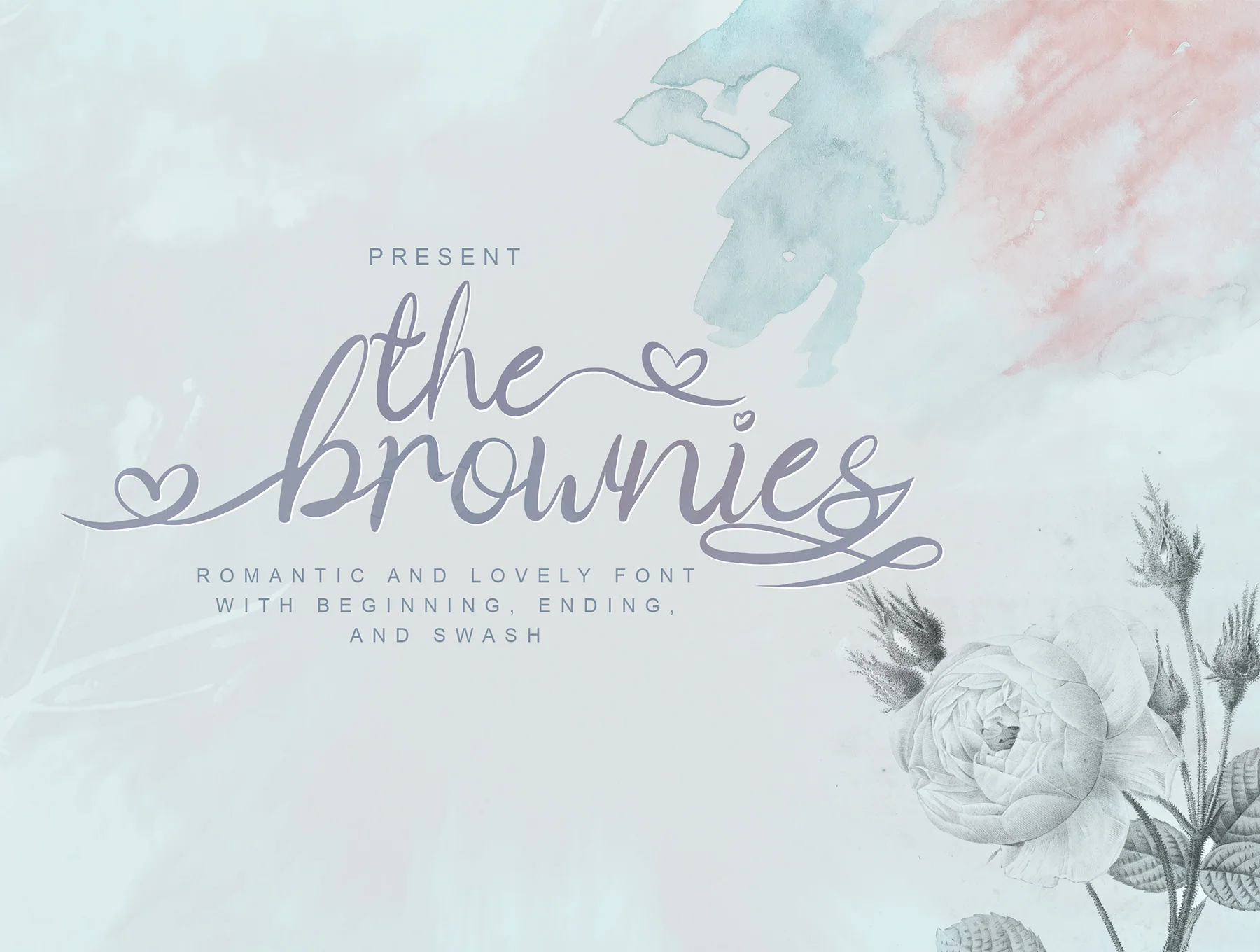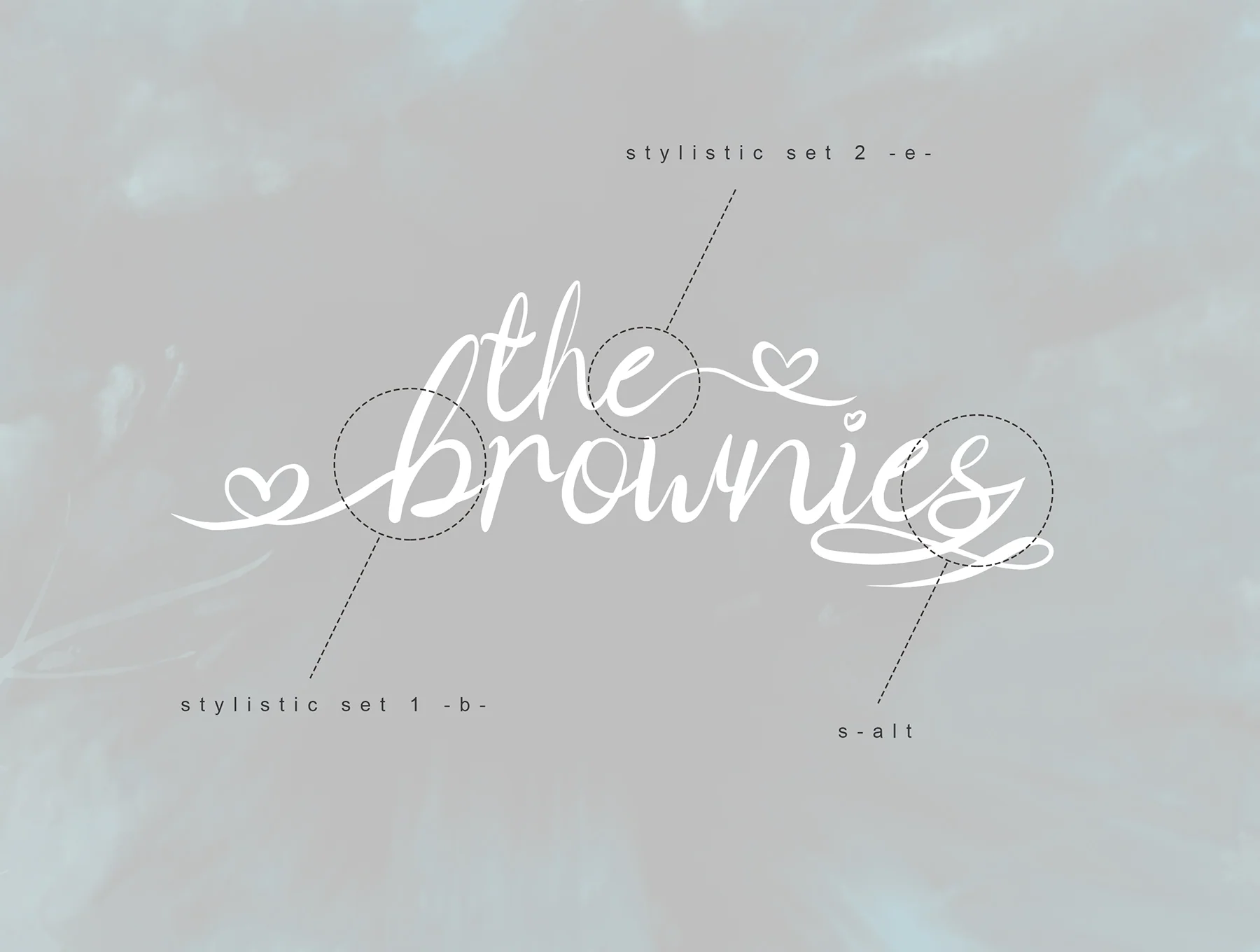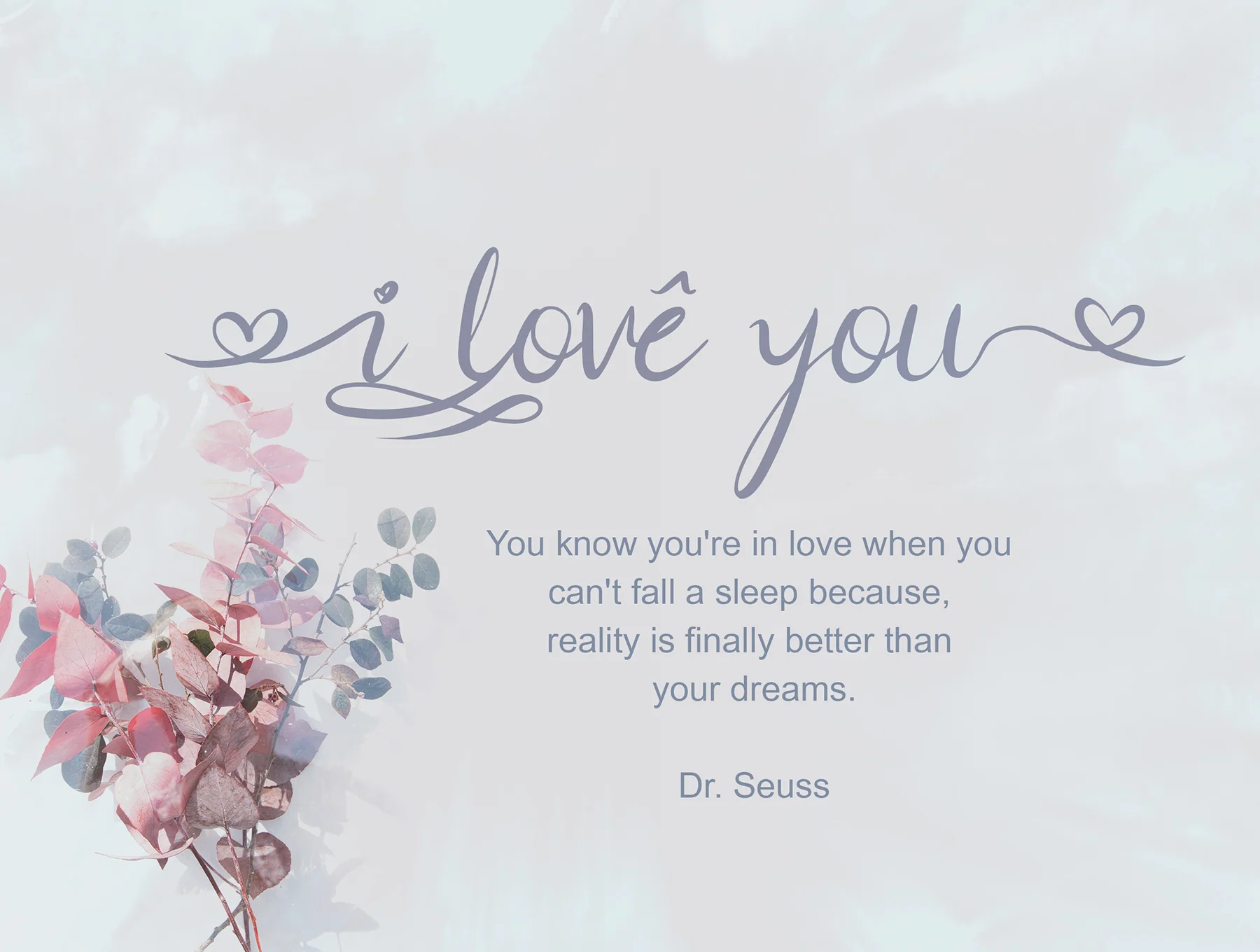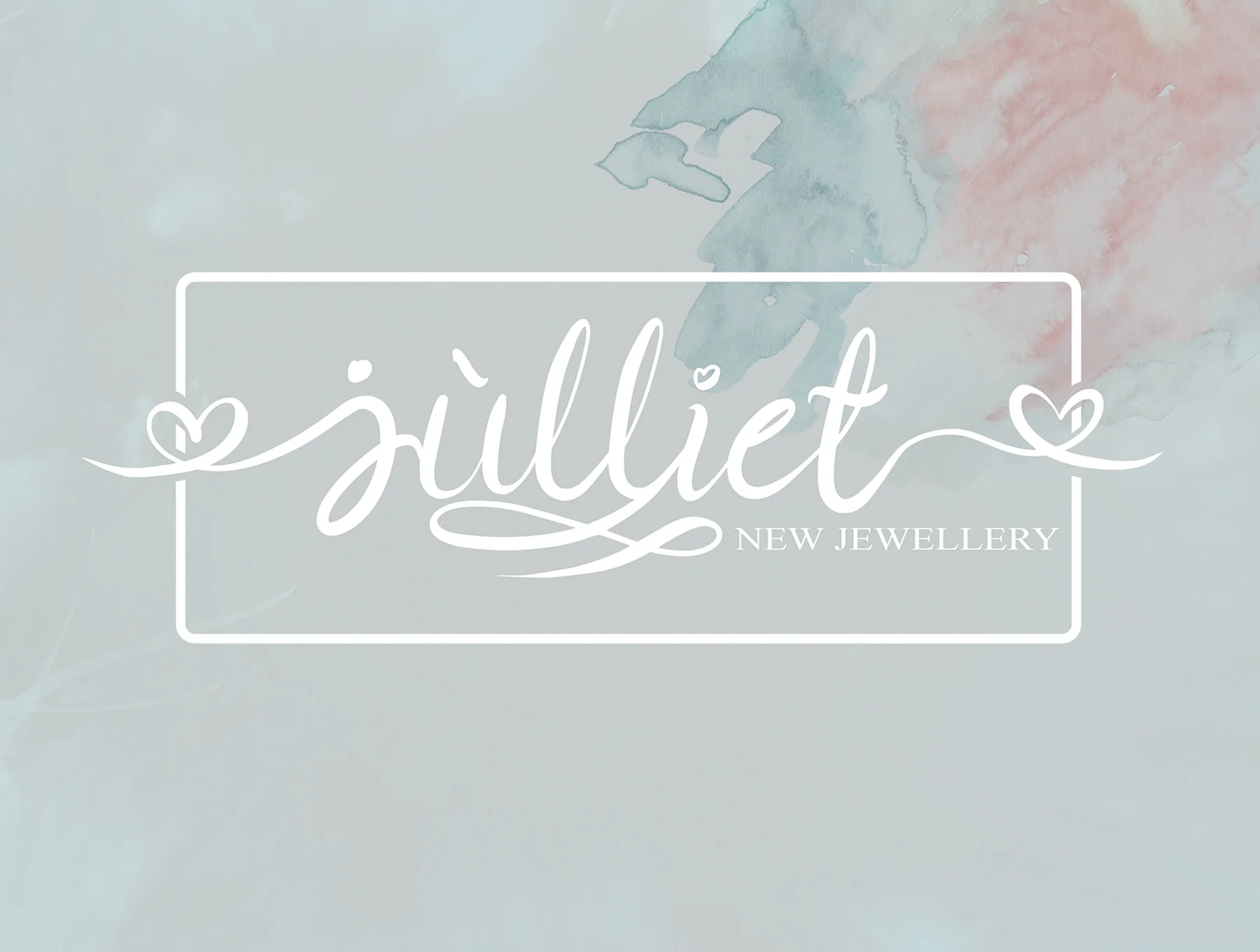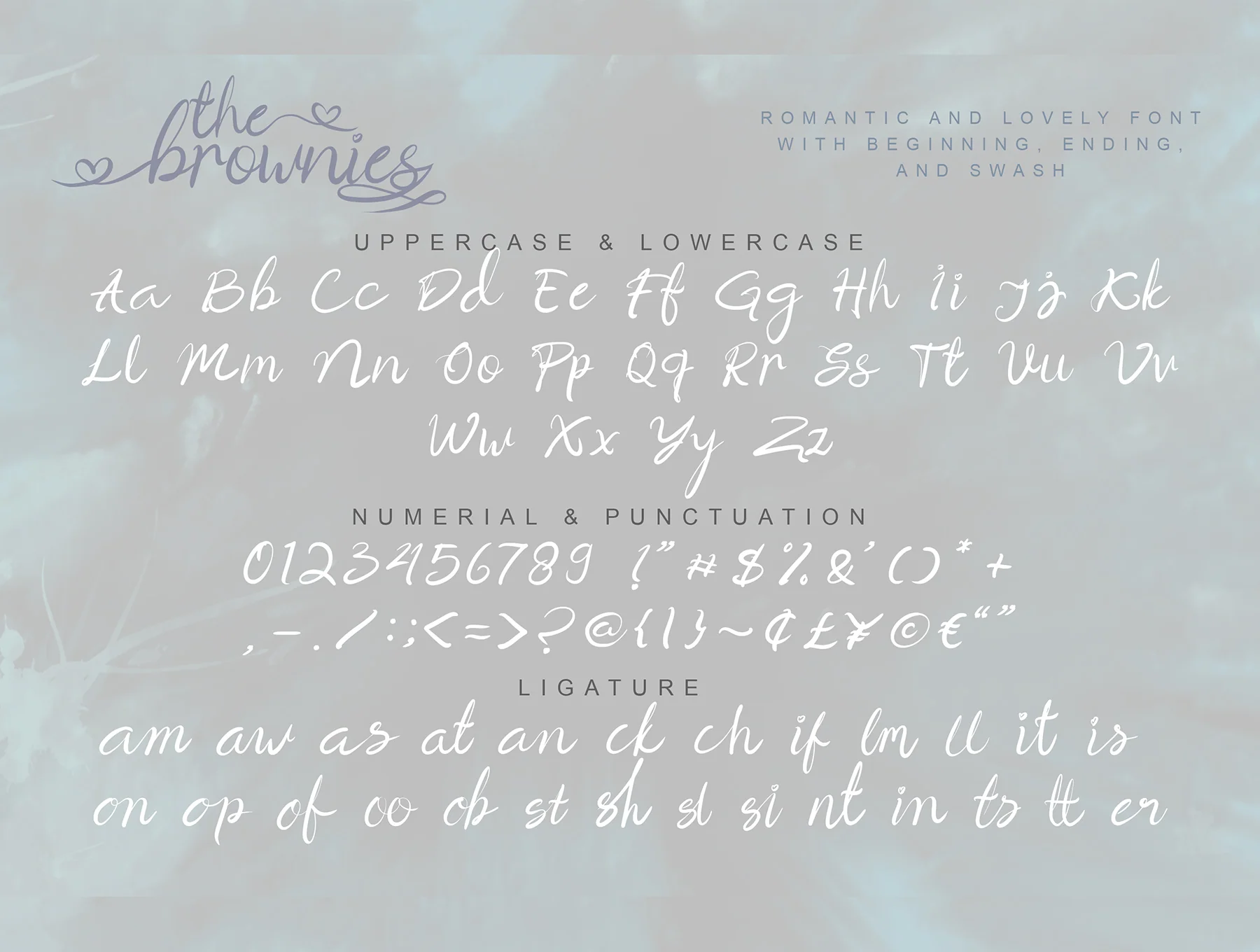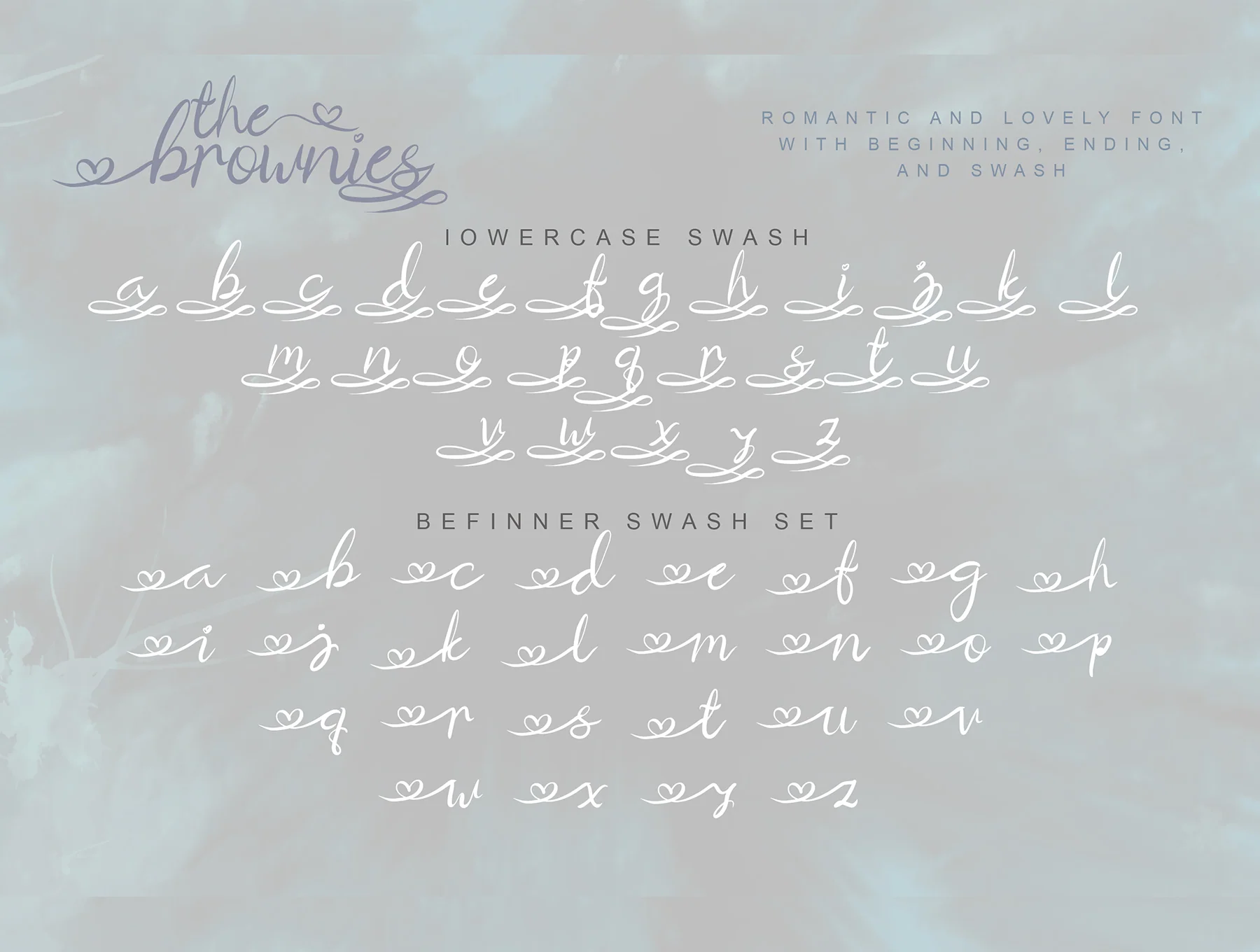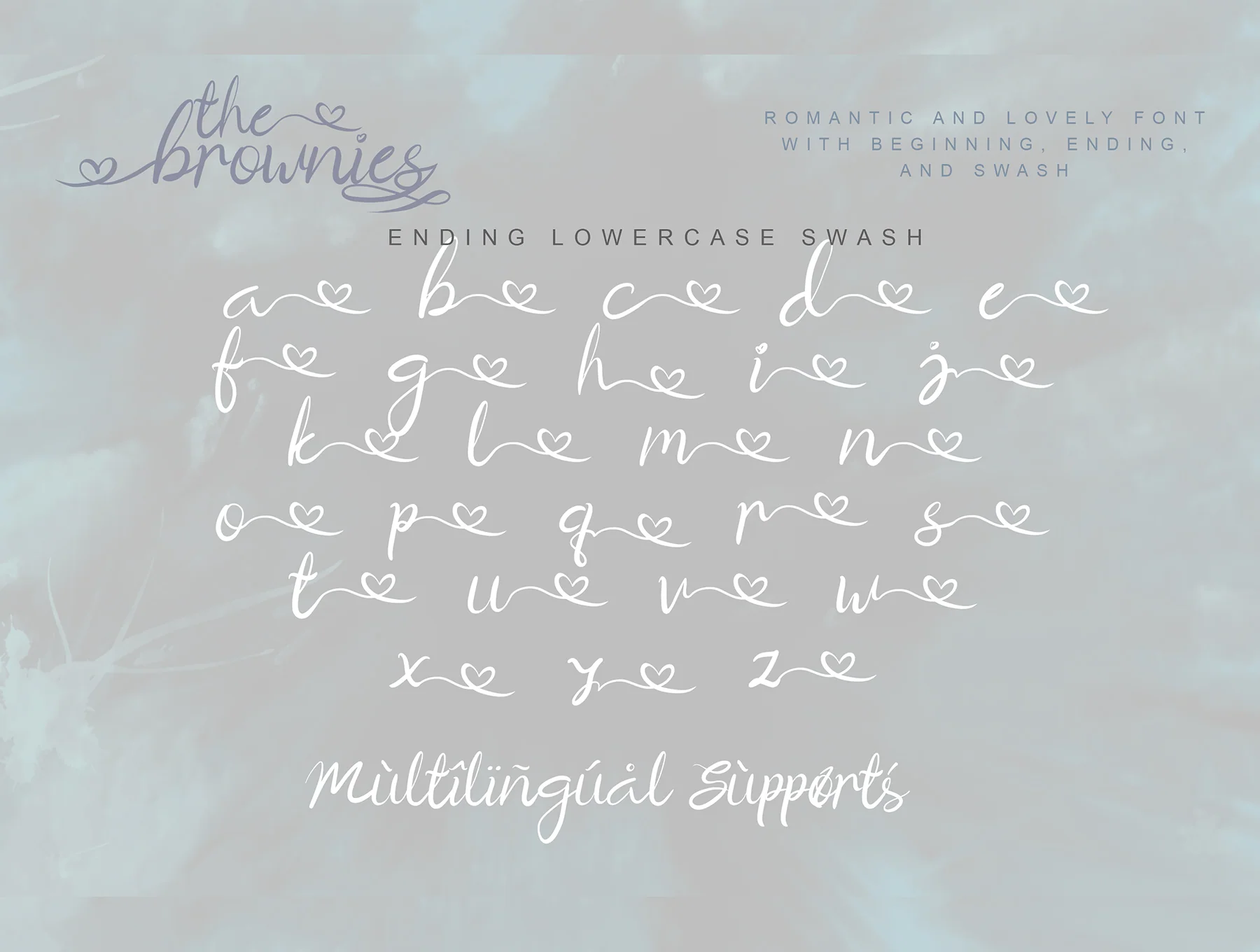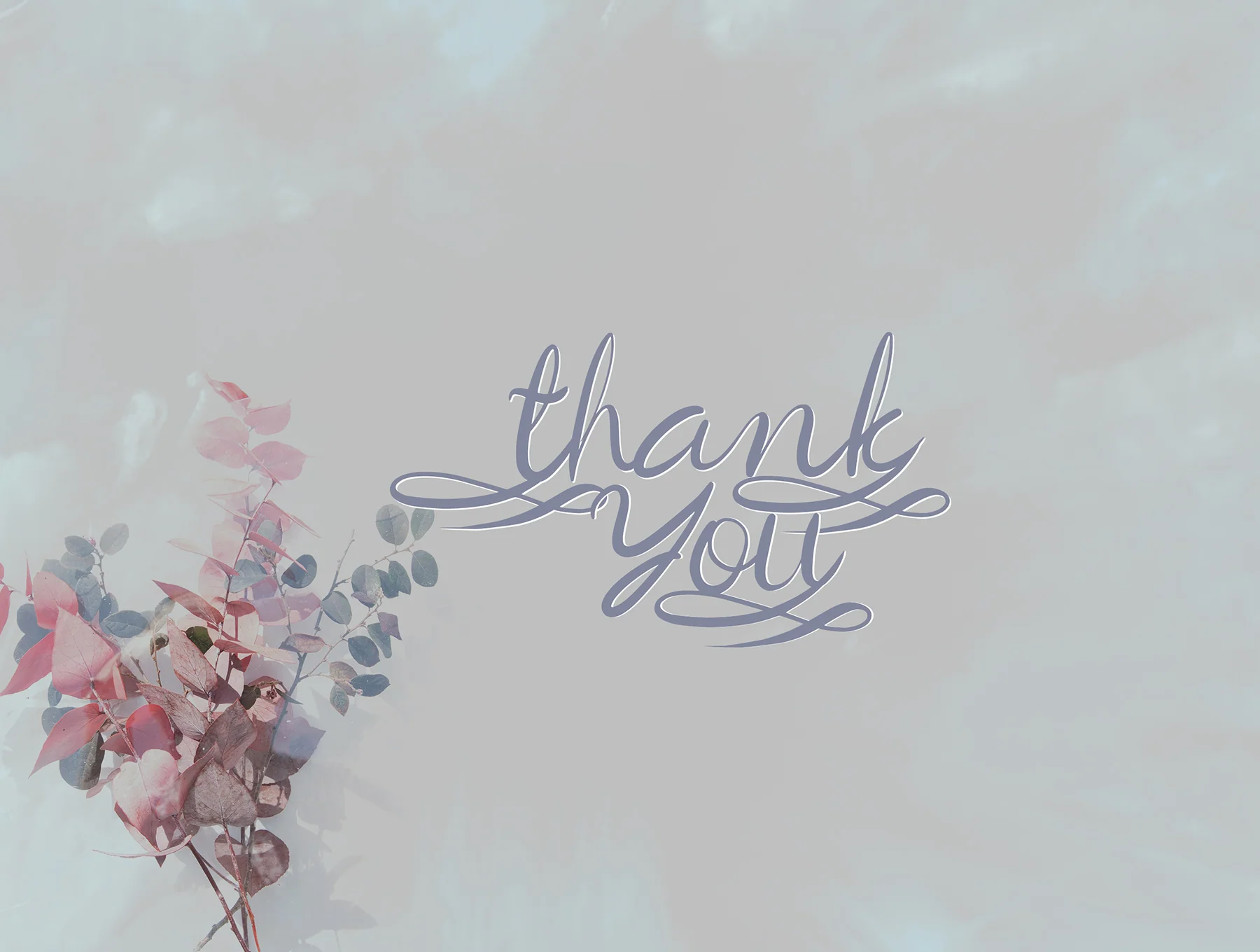
The Brownies | Romantic Love Font
The Brownies is a charming romantic font
Alternative characters
Brownies is a charming romantic font with uneven strokes and a fashionable feminine feel. It works beautifully for wedding designs, invitations, thank-you cards, quotes, business cards, and other creative projects. View alternate glyph instructions here: goo.gl/1vy2fv. For product questions, please send us a message.